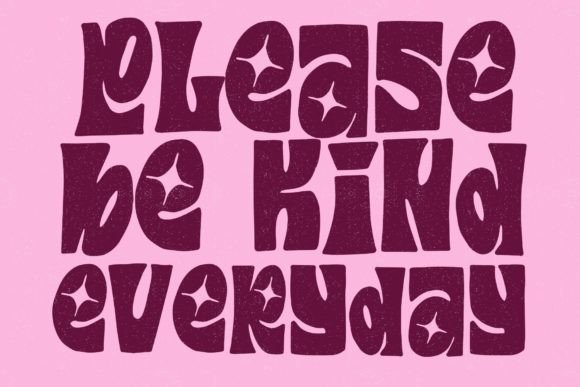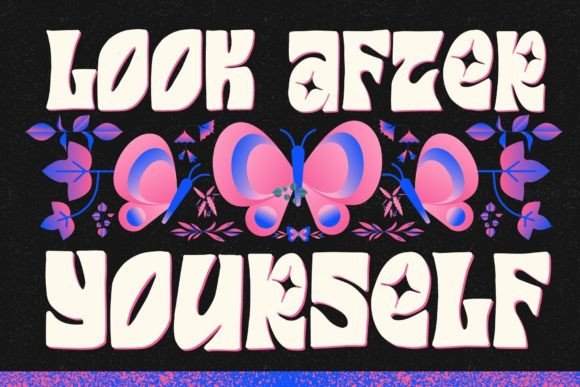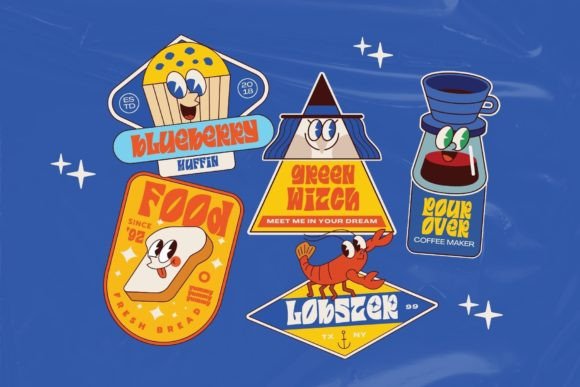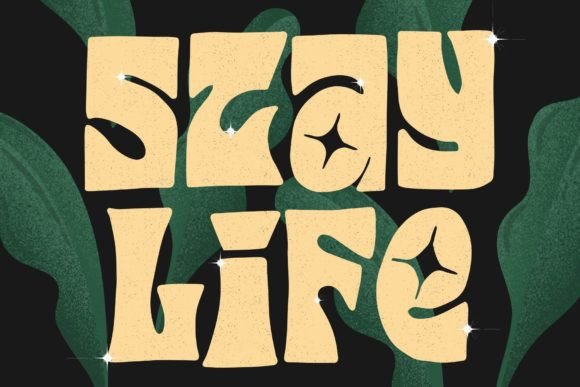
The Font that Stands Tall: Unpacking the Power of Feet Font
Have you ever been scrolling through a design website or social media, and suddenly, a font jumps out at you, demanding your attention? That’s what happened to me the first time I laid eyes on Feet Font. I was immediately struck by its bold, impactful aesthetic – it was like nothing I’d seen before. As a designer, I knew I had to learn more about this fascinating font.
Feet Font is a sans-serif powerhouse, designed to make a statement. Its thick, powerful strokes and striking letterforms are impossible to ignore. Whether you’re creating a bold headline, a eye-catching poster, or a brand identity, Feet Font is the perfect tool for conveying strength, confidence, and a sense of modernity.
For designers, Feet Font is a valuable addition to any toolkit. Its versatility and impact make it a go-to choice for a wide range of projects, from editorial design to advertising and beyond. In this article, we’ll dive deeper into the world of Feet Font and explore its unique characteristics, uses, and benefits.
Key Features of Feet Font
- Unique Characteristics: Feet Font features a distinctive, hand-drawn aesthetic with subtle imperfections, giving it a human touch and making it perfect for use in creative and design-oriented applications.
Feet Font Review
Overall, I think “Feet Font” is an interesting experiment in font design, but it falls short in some areas. ✨ Here are a few things that I appreciate about it:
- Unique Concept: The idea of a font based on footprints is quirky and attention-grabbing.
- Artistic Expression: The designer’s use of curves and lines to create letters is creative and expressive.
- Cool for Headlines: The font’s bold and playful nature makes it suitable for headlines or titles.
However, there are some limitations that prevent me from giving it a higher rating. ⚠️ Here are a few things that need improvement:
- Readability: The font’s design makes it difficult to read in smaller sizes or in blocks of text.
- Lack of Consistency: The font’s irregular shapes and varying line weights can make it look uneven.
- Limited Use: Due to its unique design, it’s not suitable for body text or long paragraphs.
Overall, I think “Feet Font” is a fun and creative experiment, but it’s not a practical solution for everyday use. If you’re looking for a bold and eye-catching font for a specific project, it might be worth considering, but for general use, I’d recommend something more traditional and readable.
Practical Application Guide for Feet Font
Feet Font is commonly used in:
– Fashion and beauty design
– Children’s book illustrations
– Sports and fitness branding
– Casual and playful advertising
Tips for Getting the Most Out of Feet Font
For the best results, use Feet Font in conjunction with bold, playful graphics and bright colors. Experiment with different font sizes and styles to create visual interest and emphasis.
Alternatives to “Feet Font” for Designers
Open Sans is a modern sans-serif font that is highly legible and versatile. It is suitable for body text, headings, and titles. When to use: Open Sans is ideal for digital products, websites, and apps where readability is crucial. Compared to Feet Font, Open Sans is more straightforward and doesn’t have the same level of ornate details.